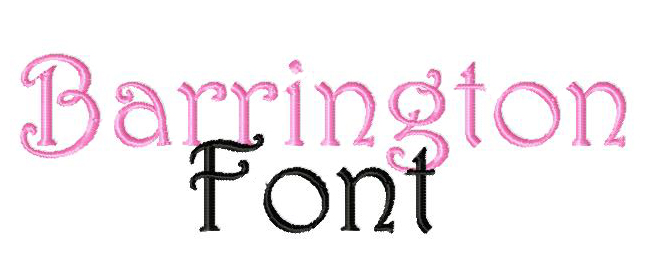
Today's Gold Member machine embroidery design font is a fantastic favorite. Titled Barrington, it is both classy and fun and will look awesome on any project! Download this design for Gold Members only.
The Barrington Font is done in a Satin Stitch and includes uppercase and lowercase letters, numbers and bonus punctuation in all of the following sizes: 1" 2" & 3"